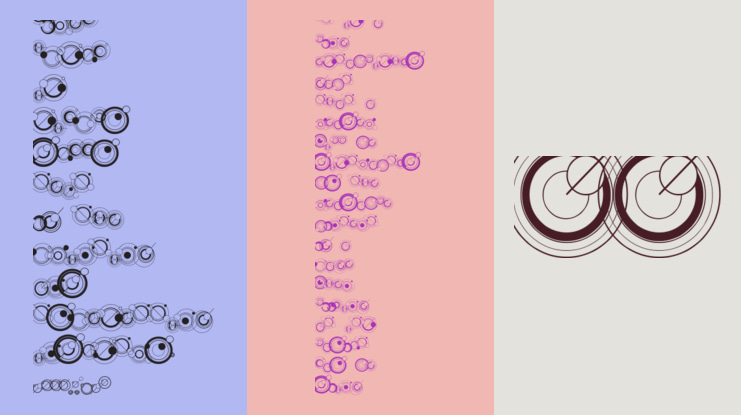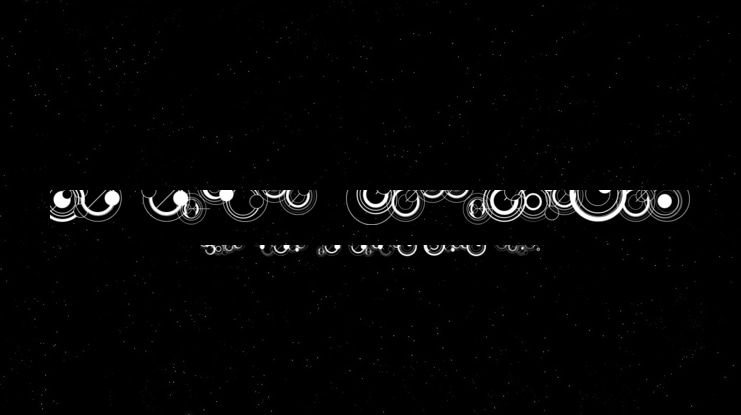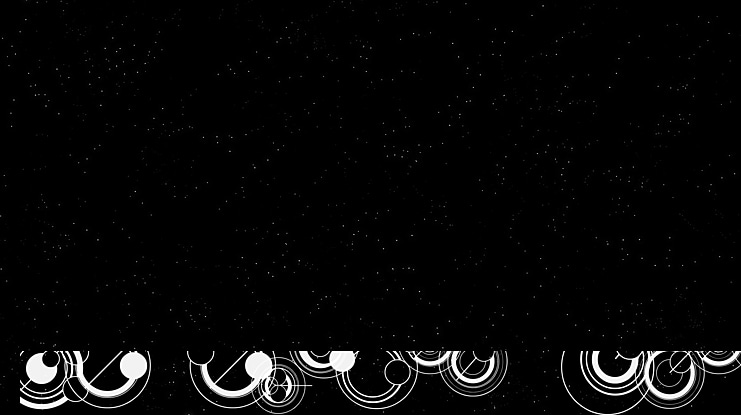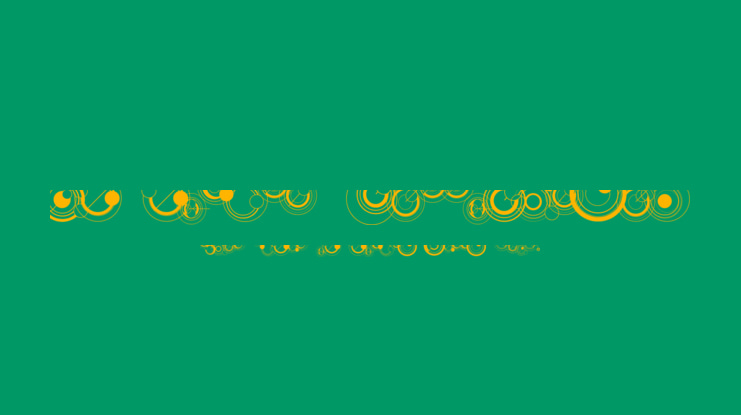
WS Simple Gallifreyan Font
A simple Gallifreyan font that You can actually use :) Download it for free, or buy me a cuppa. https://www.paypal.me/MelanieCook